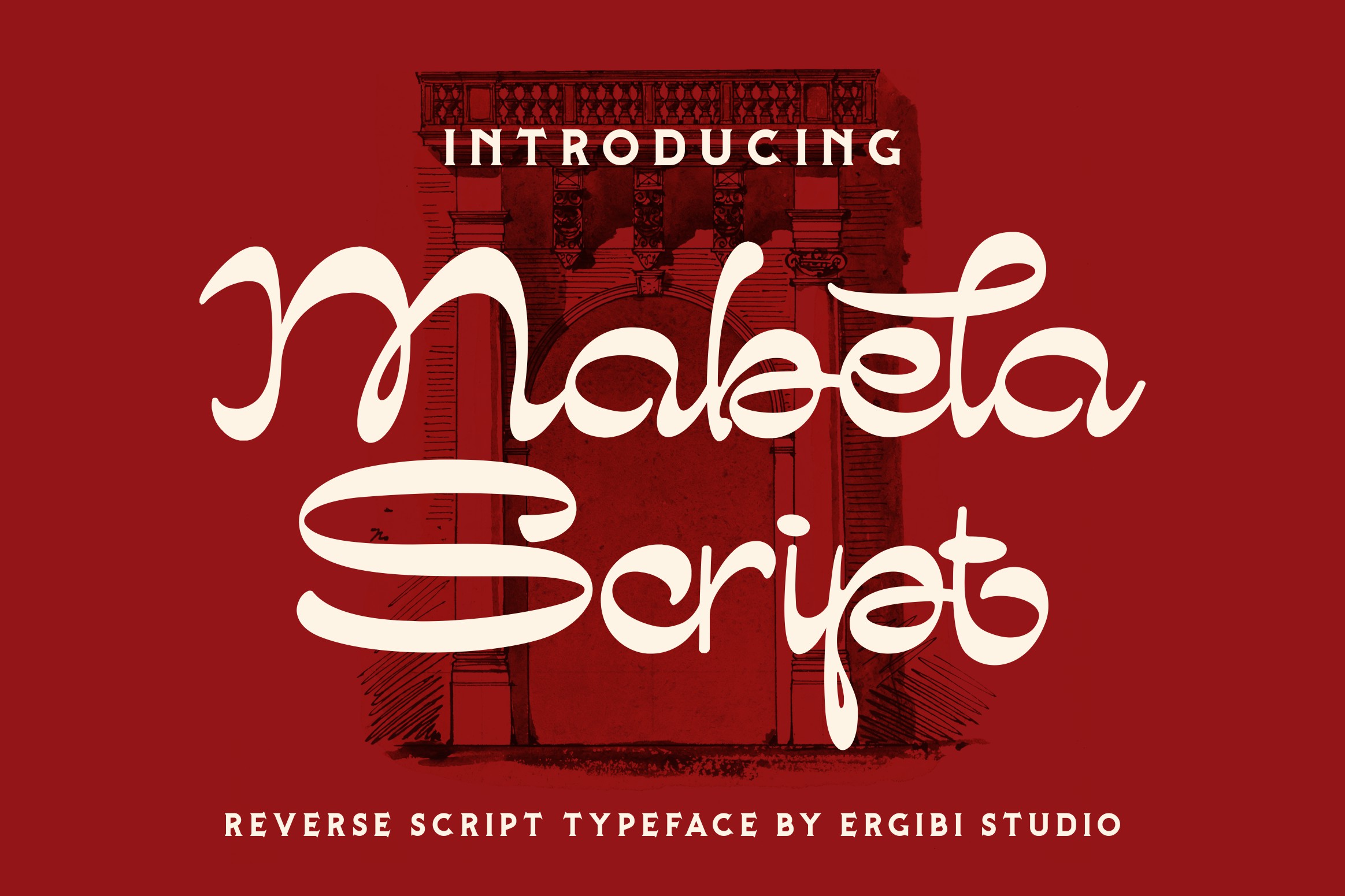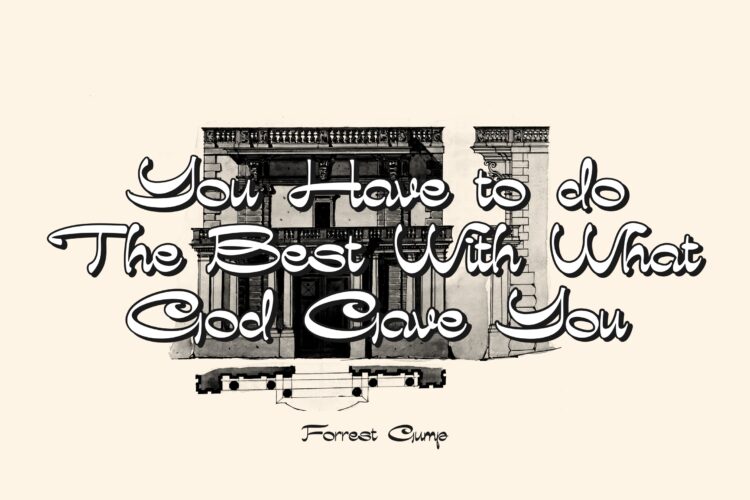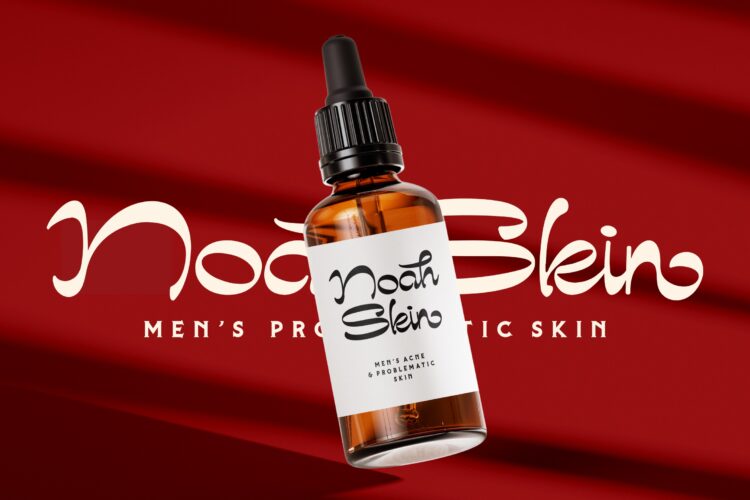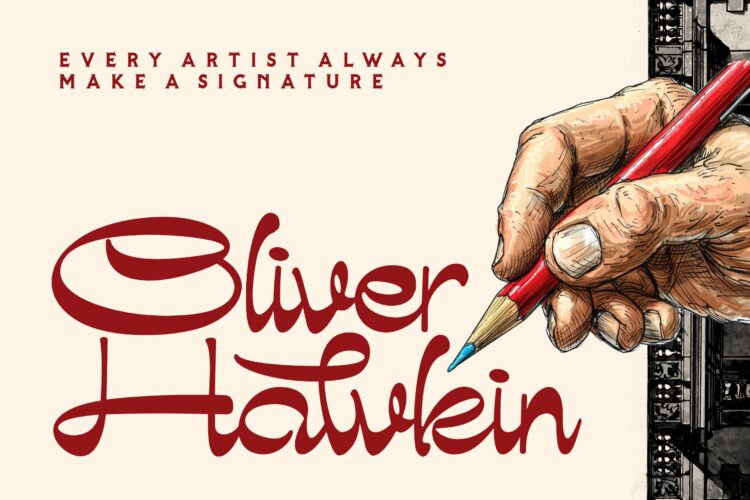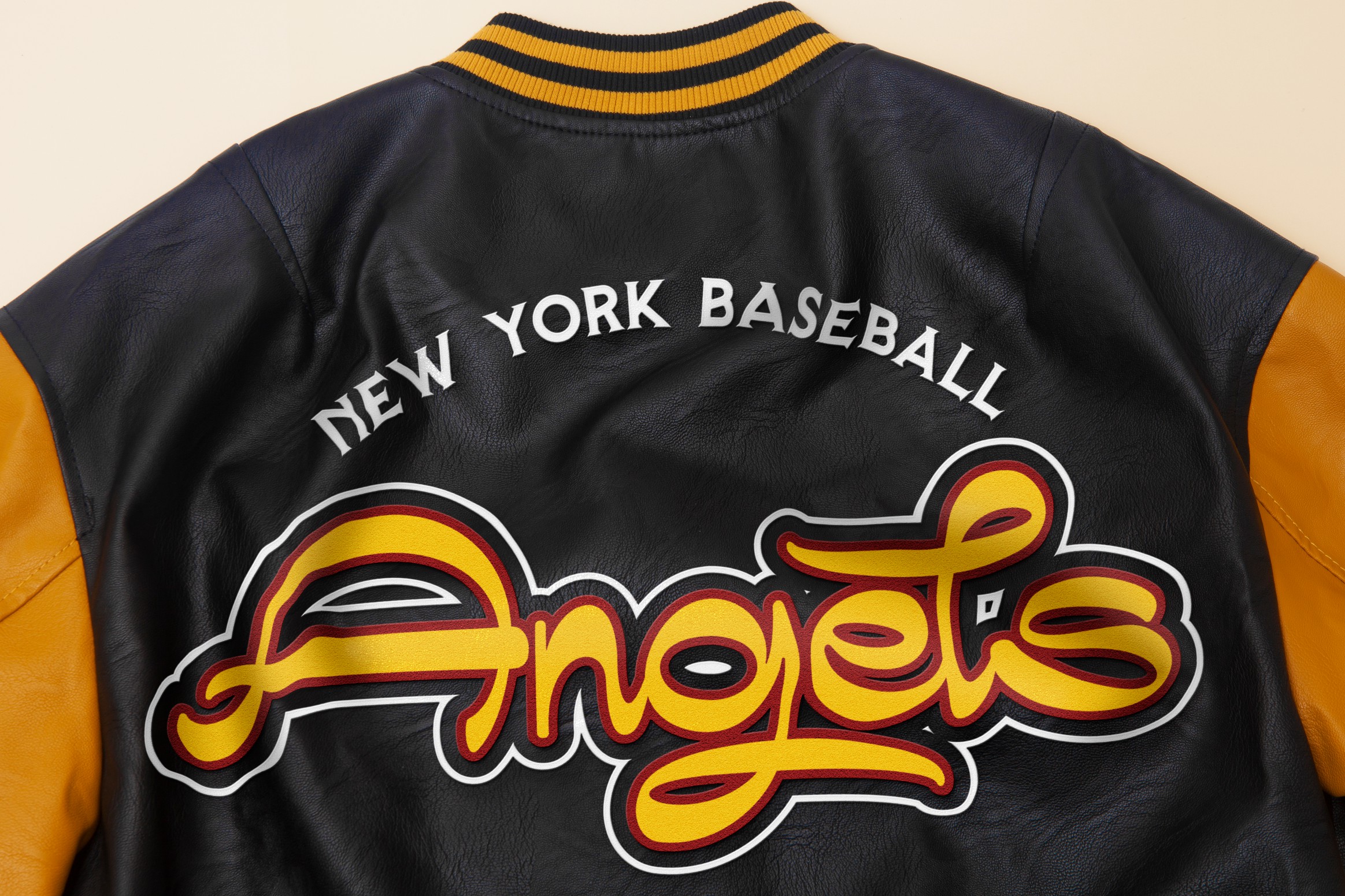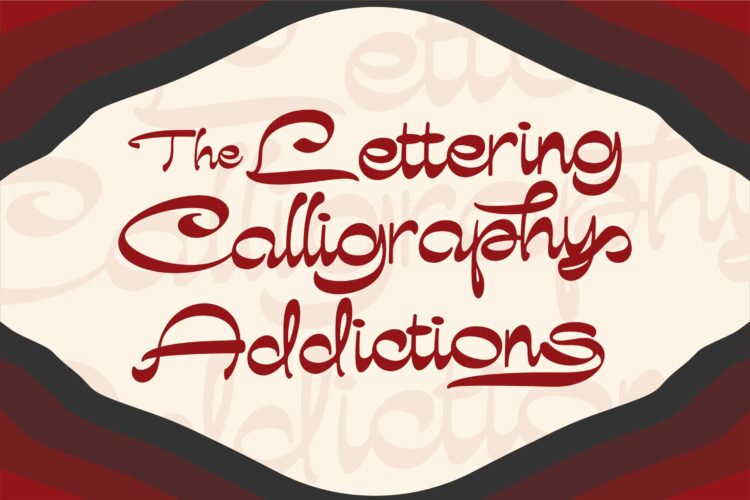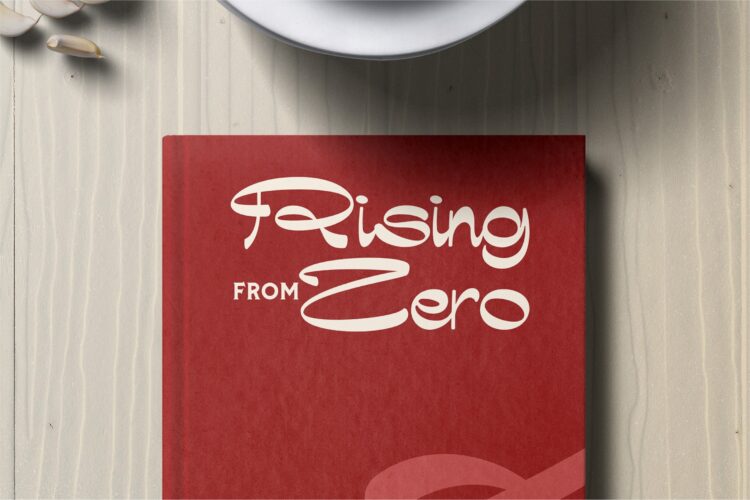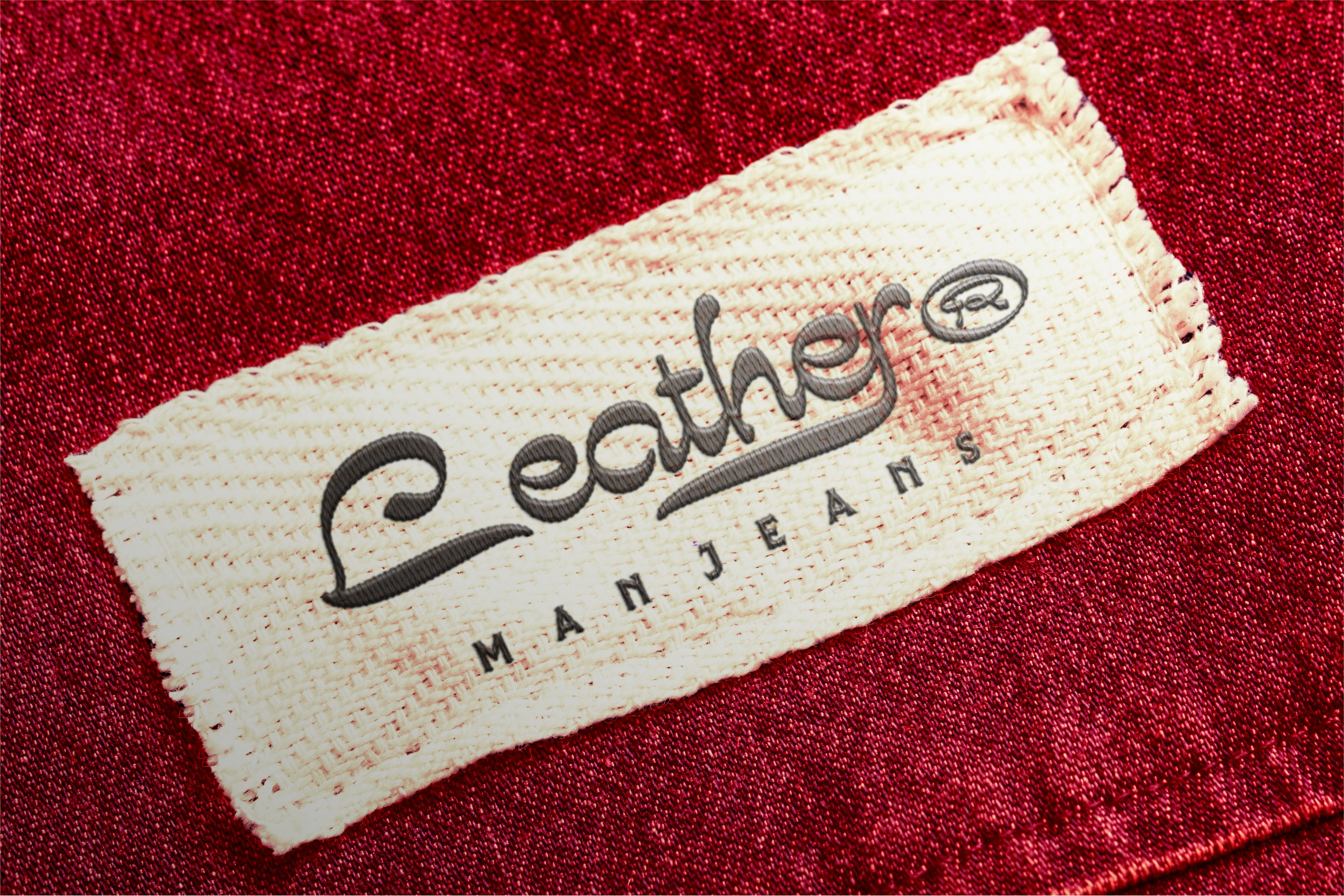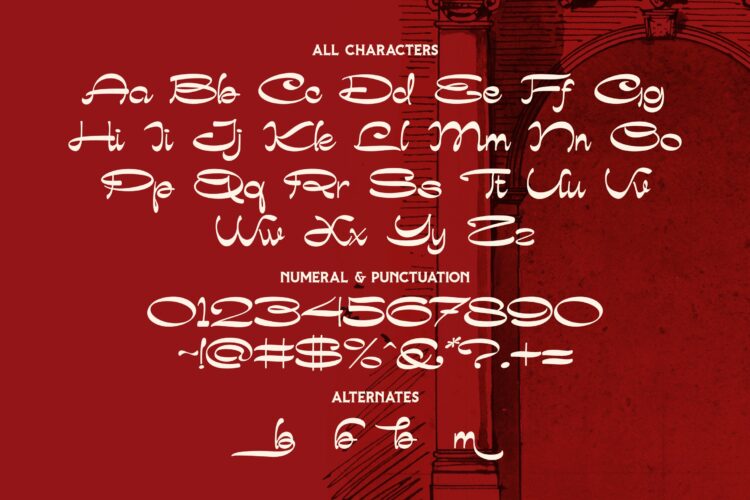
Mabela Script
Mabela Script is a sophisticated blend of classic and modern design, exuding elegance and a premium feel. Featuring smooth strokes, dynamic curves, and meticulous details, this font is crafted to elevate any creative project. Perfect for luxury branding, logos, wedding invitations, product packaging, and more, Mabela Script delivers a unique and captivating aesthetic. Its harmonious balance between beauty and professionalism ensures that every letter stands out, making your designs truly unforgettable.